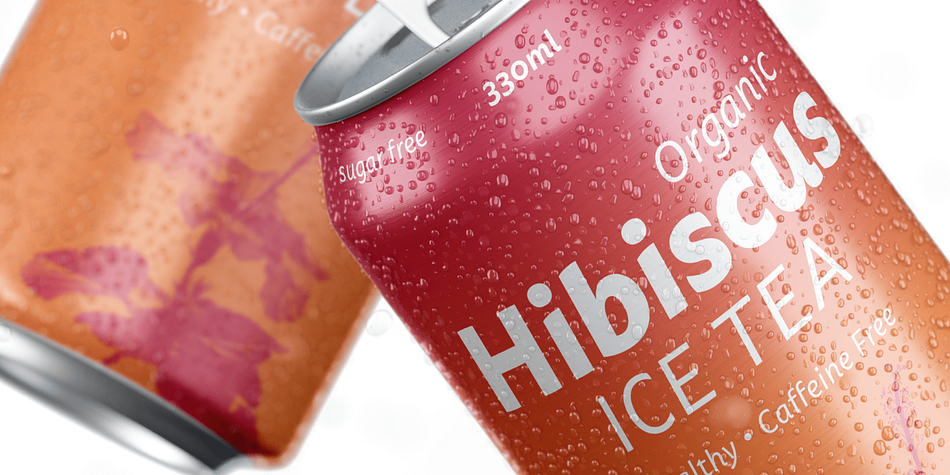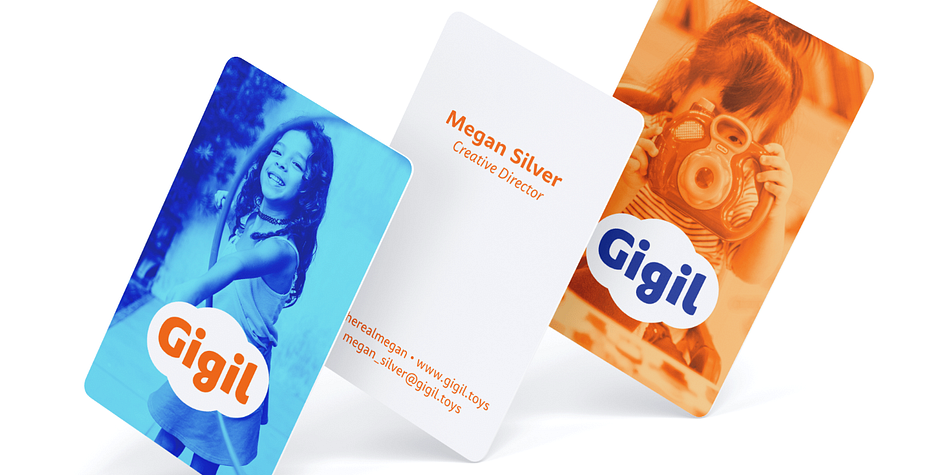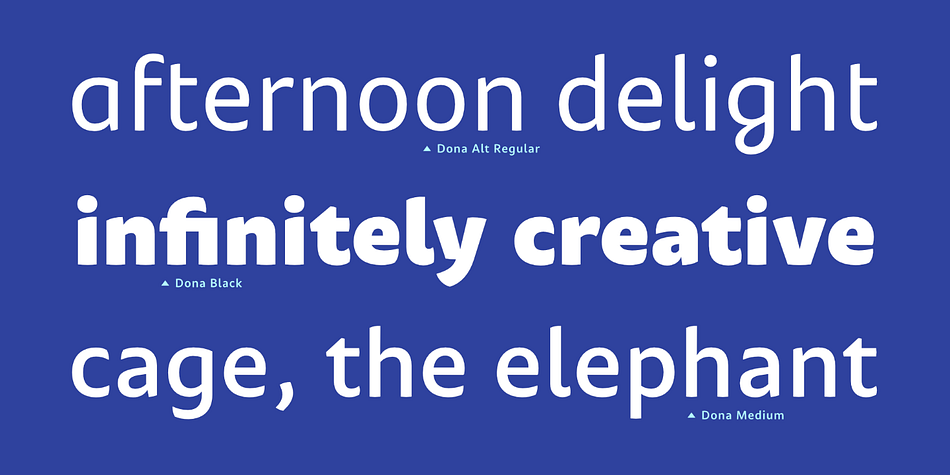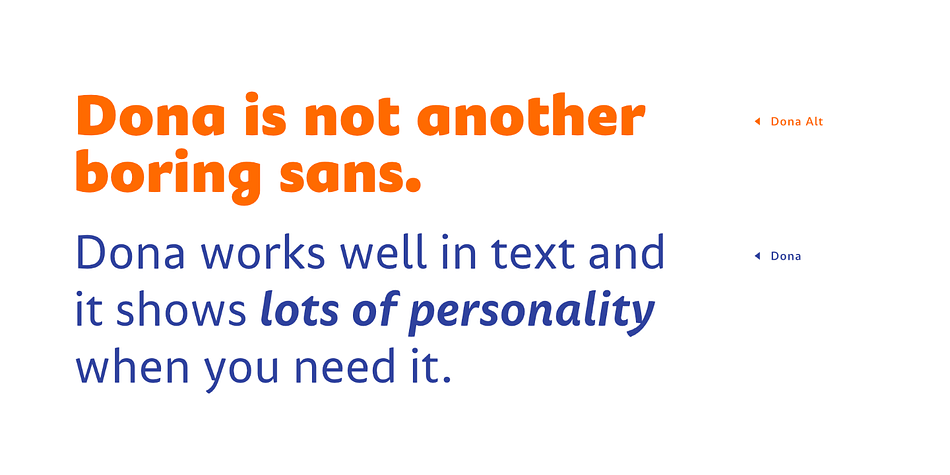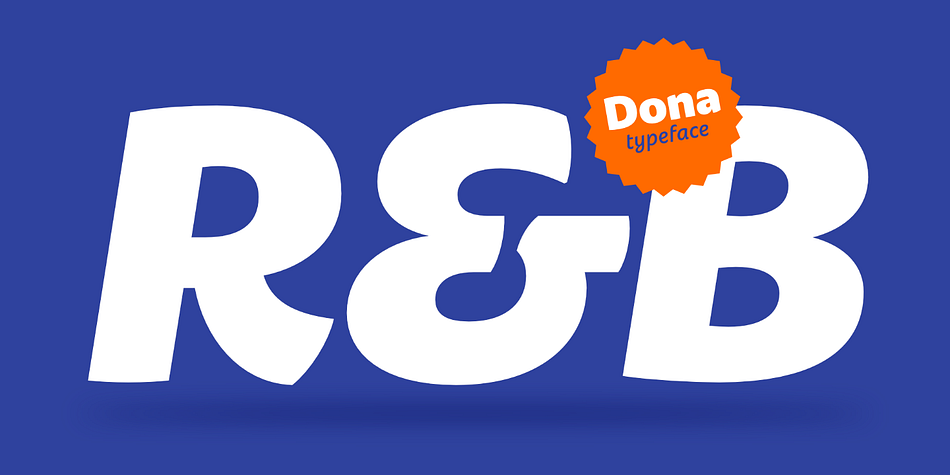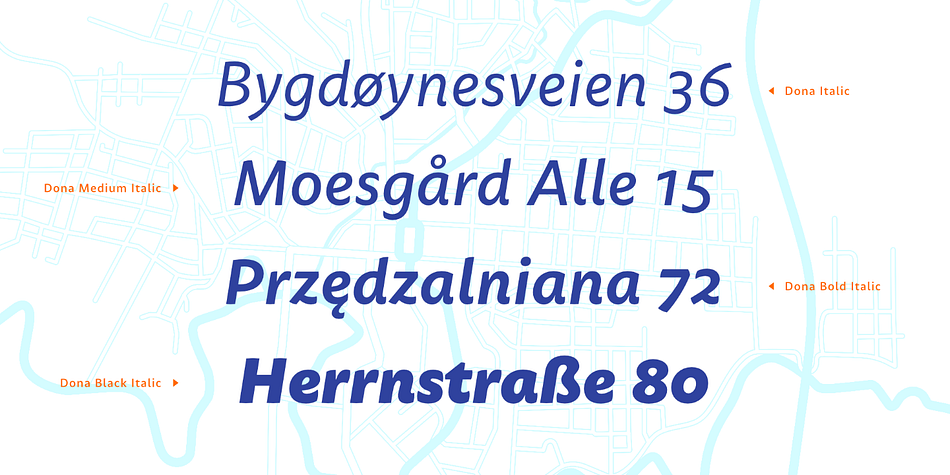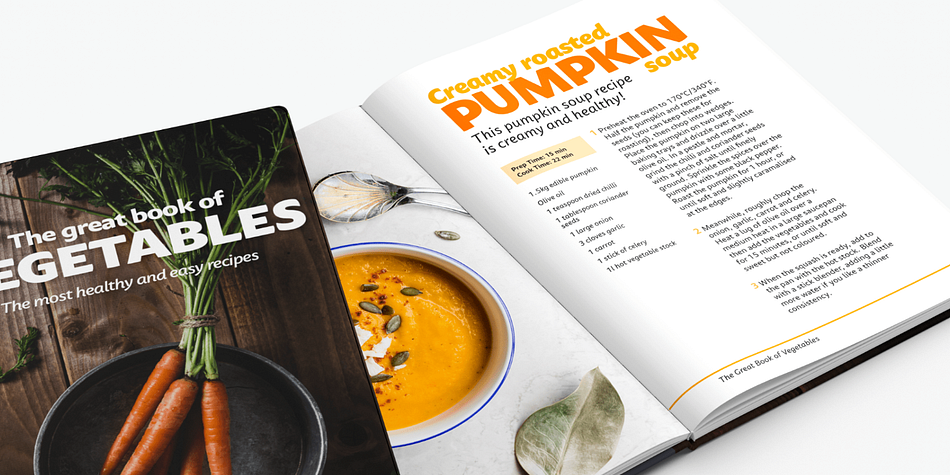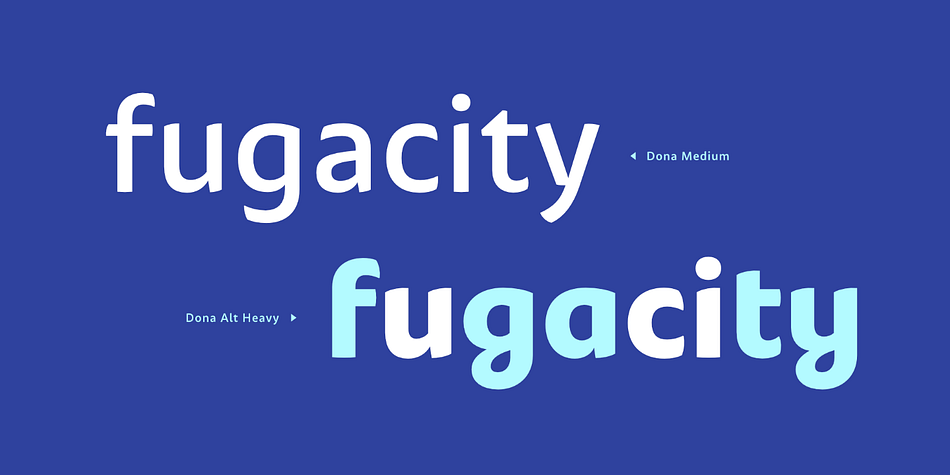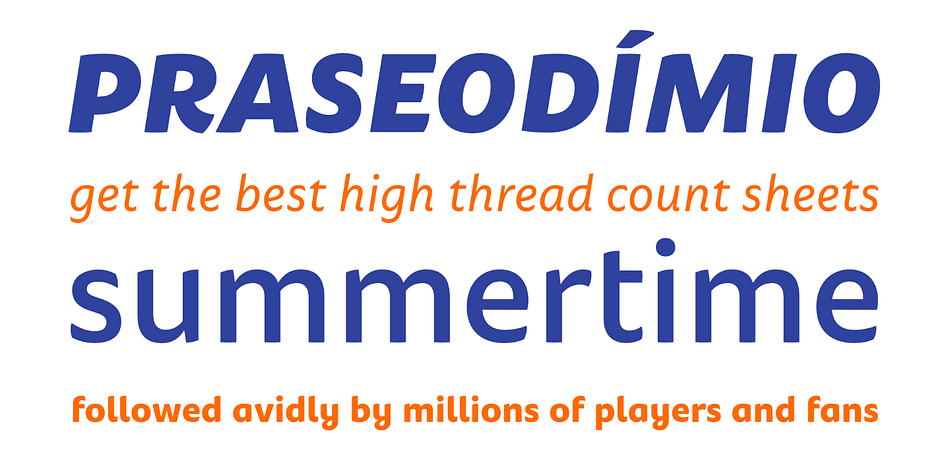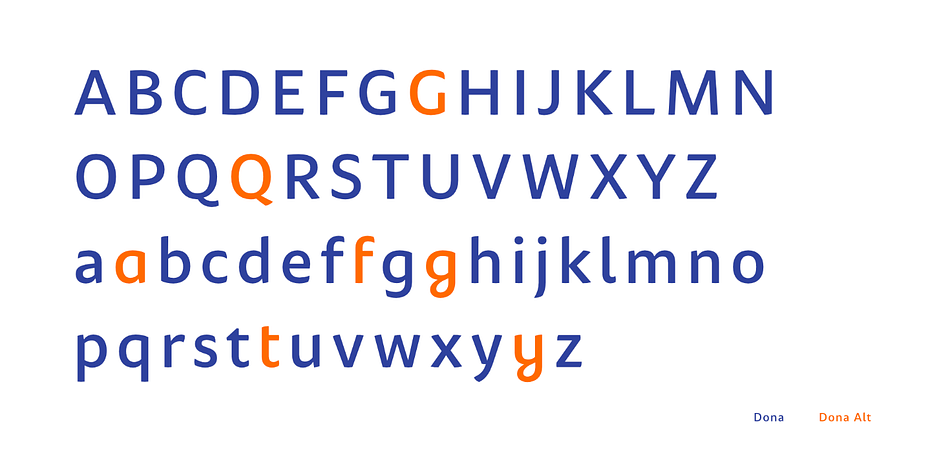
Designed by Henrique Beier, Dona is a retro and sans serif font family. This typeface has twenty-two styles and was published by Harbor Type.
Dona is a non-boring sans serif. While very legible in text sizes, its friendly details really come to life on headlines, packaging and visual identities. To make it even more interesting, Dona Alt brings a different feeling with just a few different glyphs.
The Dona type family comes in 5 weights, from Regular to Black, matching italics and an Alt version, totalling 20 fonts. If you need even more control, variable fonts are also available. Each font contains 528 glyphs and supports over 200 languages.